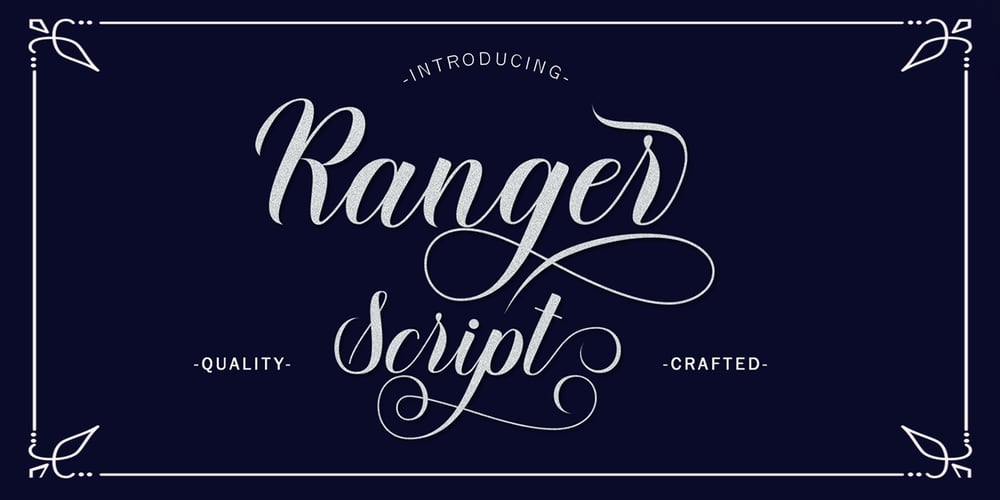
Ranger Script Font Family was designed by Rizki Andika and published by Letterfreshstudio. Ranger Script contains 1 styles and family package options. Ranger Script is a modern handwriting calligraphy script. Contains a complete set of lowercase, uppercase, alternative, ligature, punctuation, numbers, and multilingual support. Works in harmony with Ranger Script to create awesome calligraphy creations. You are welcome to use it for various purposes: logos, wedding invitations, titles, signatures, t-shirts, letterheads, signboards, labels, posters etc. How to access all alternative characters, using Windows Character Map with Photoshop: https://www.youtube.com/watch?v=Go9vacoYmBw How to access all alternative characters using Adobe Illustrator: https://www.youtube.com/watch?v=XzwjMkbB-wQ